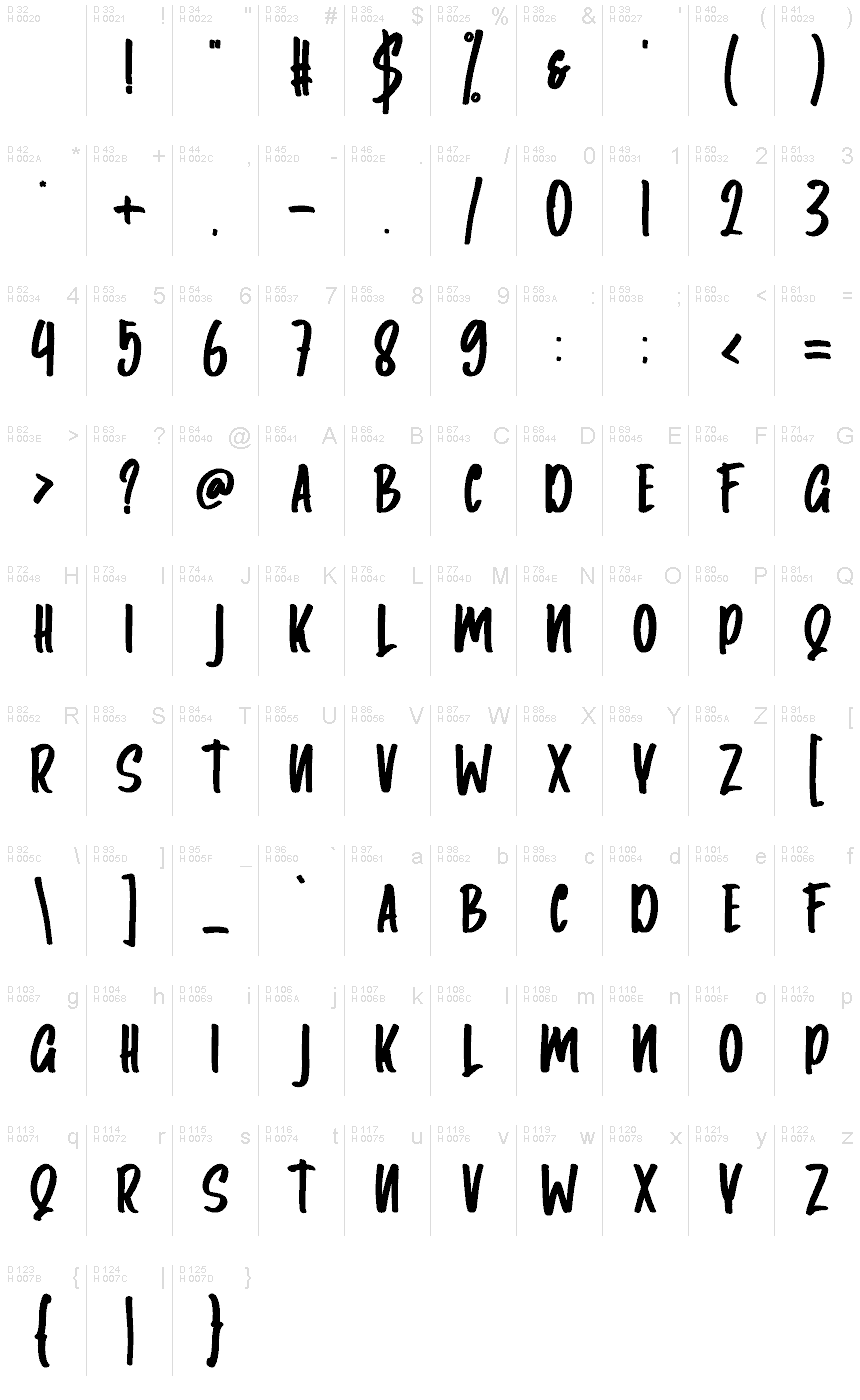
Amsyong
Amsyong font by Skiiller Studio is a condensed handwritten font with an undeniable charm and appeal. Every character appears almost like it was drawn directly with a pencil by someone who loves to take their time, dive into the process, and indulge in every pen stroke. The overall look this typeface has is approachable and friendly turning every word it will get used for more interesting than ever.